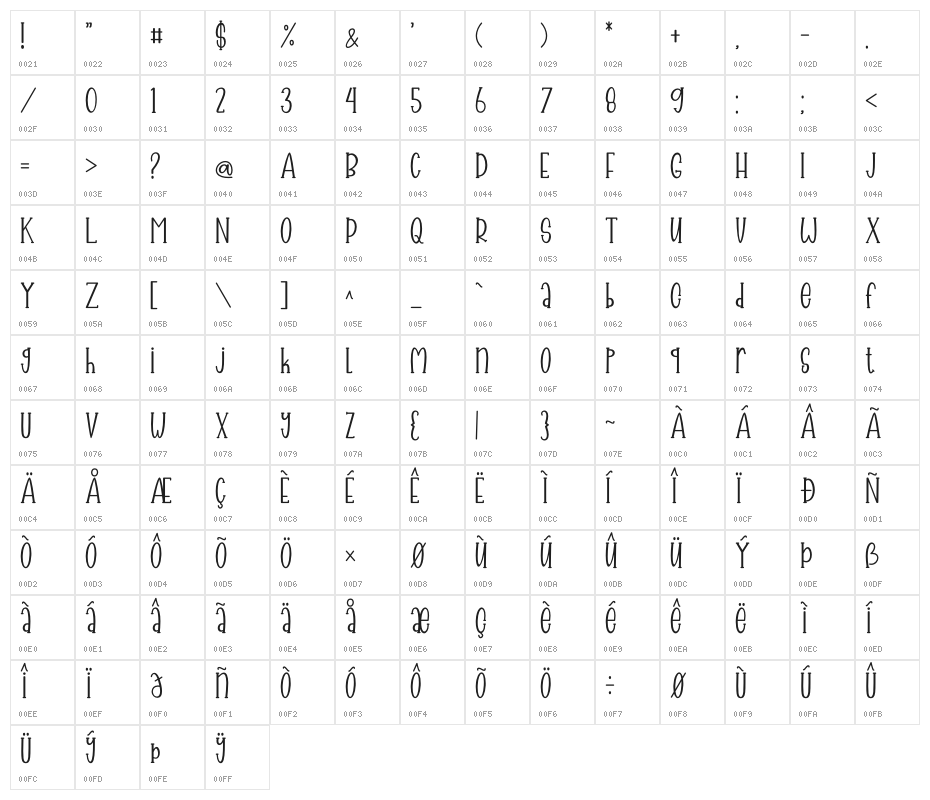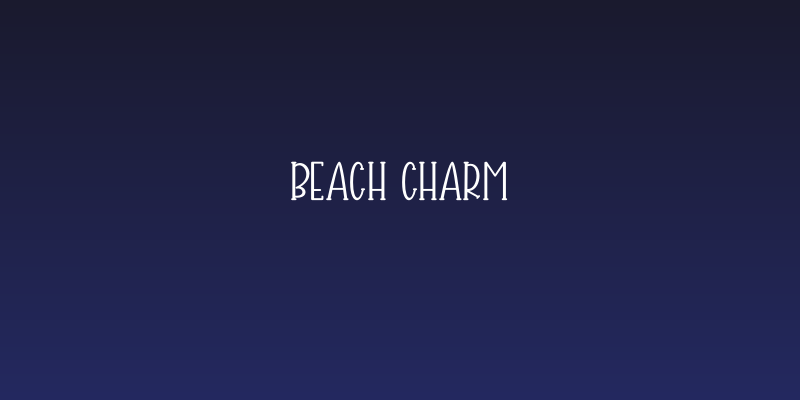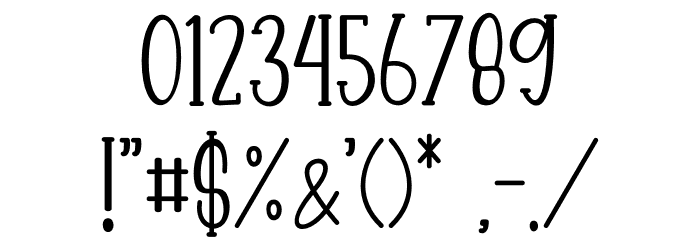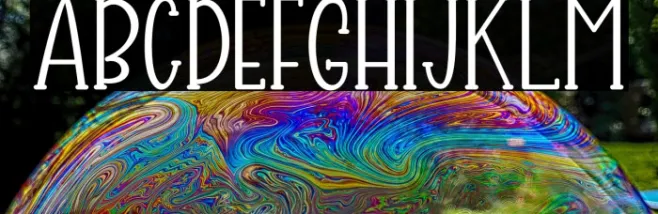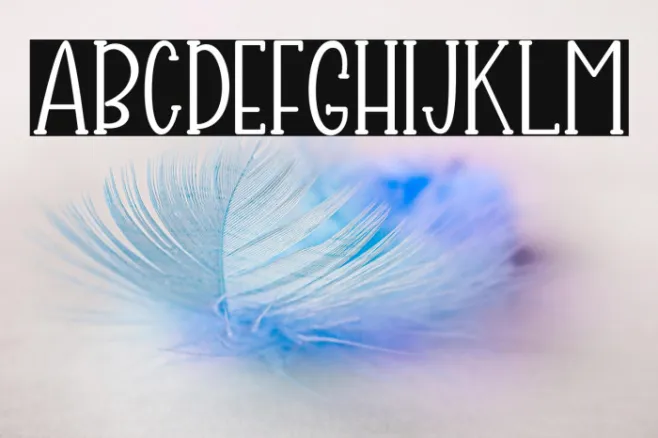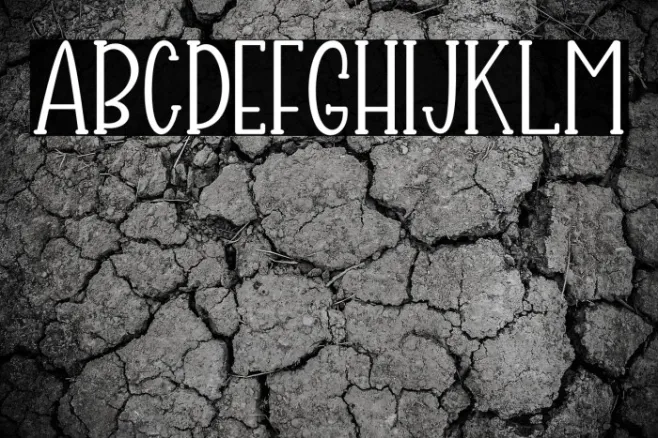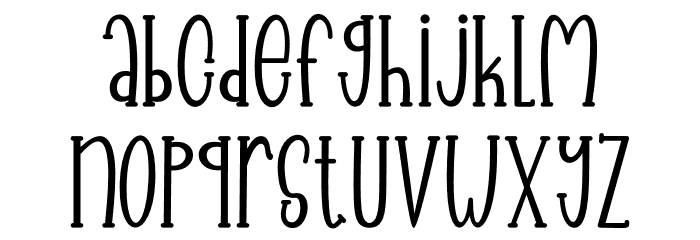
Beach Charm Font
Beach Charm Description
This font features a playful and whimsical design with a hand-drawn aesthetic. The letters are tall and narrow, with a slight curve that adds a touch of elegance and charm. The uppercase letters are bold and prominent, while the lowercase letters maintain a consistent style with a slightly more relaxed appearance. Numbers and special characters are designed to match the overall playful theme, making them suitable for creative projects. The font's unique style is reminiscent of beachside signage or casual invitations, offering a friendly and approachable vibe.
| Proposed Projects | Ideal for beach-themed invitations, casual event posters, playful branding, and creative social media graphics. |